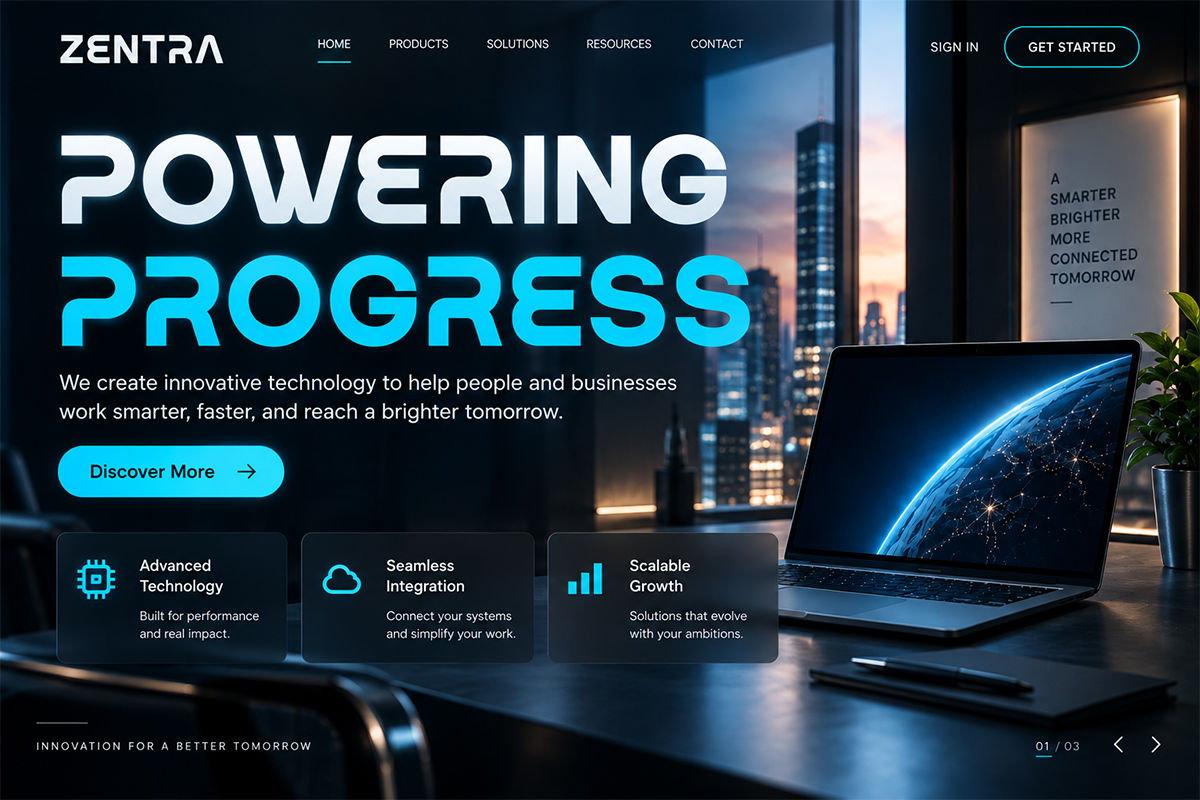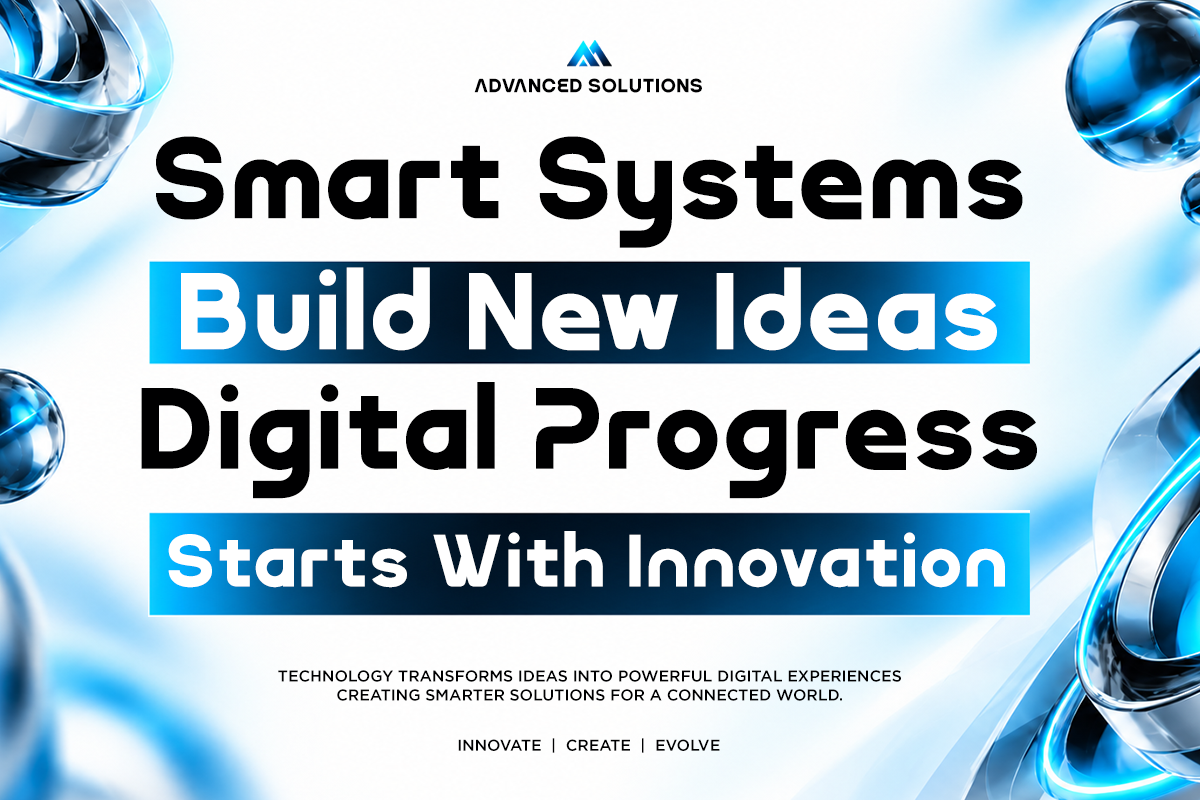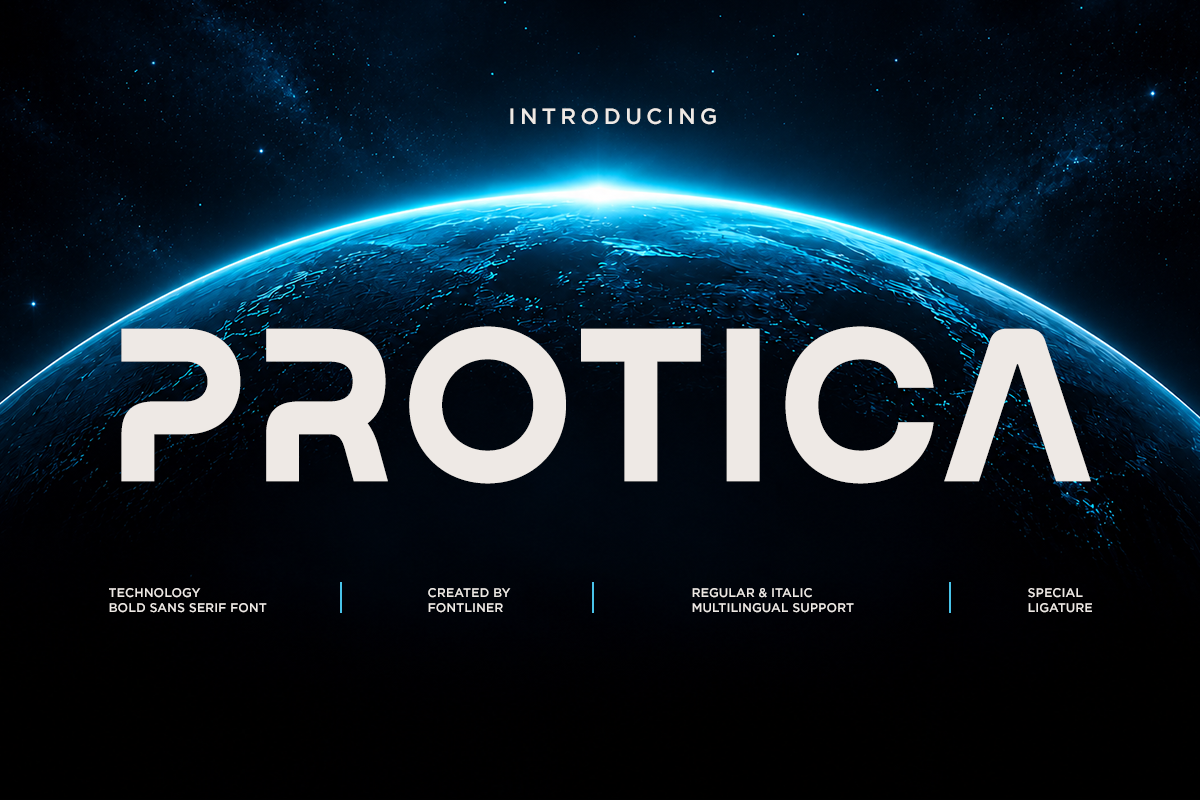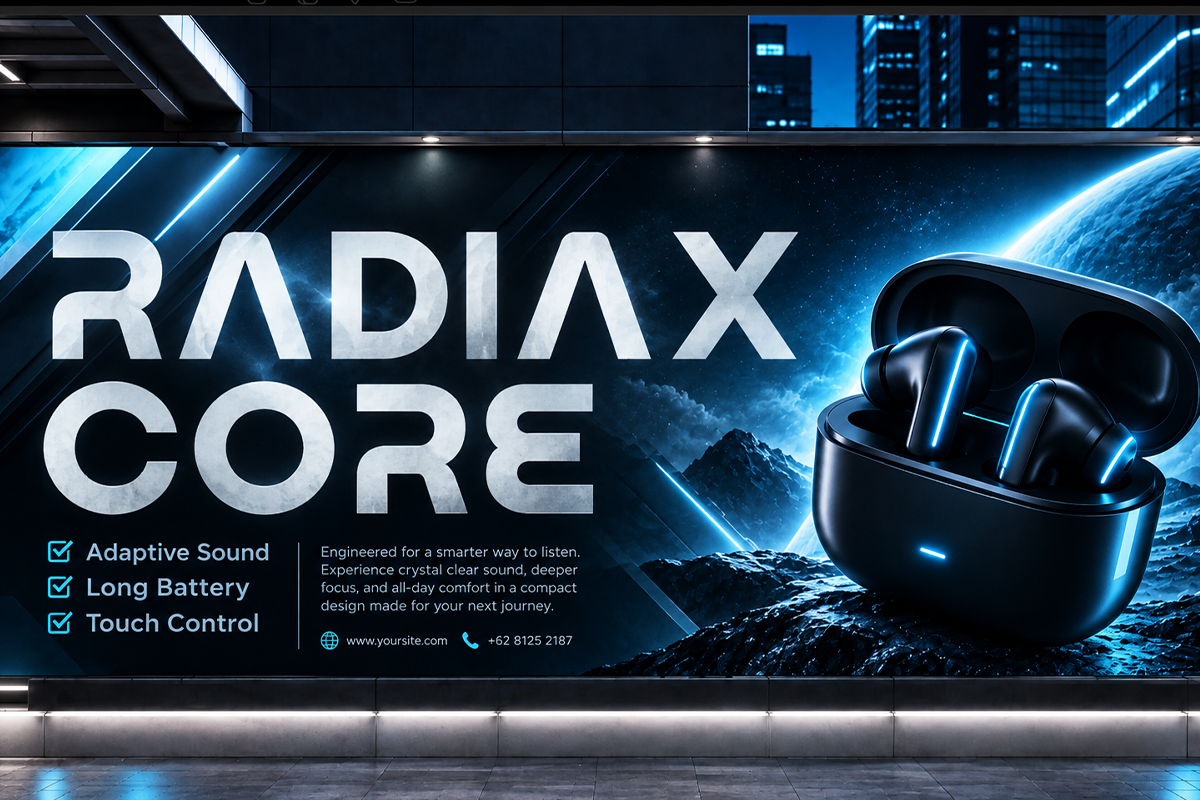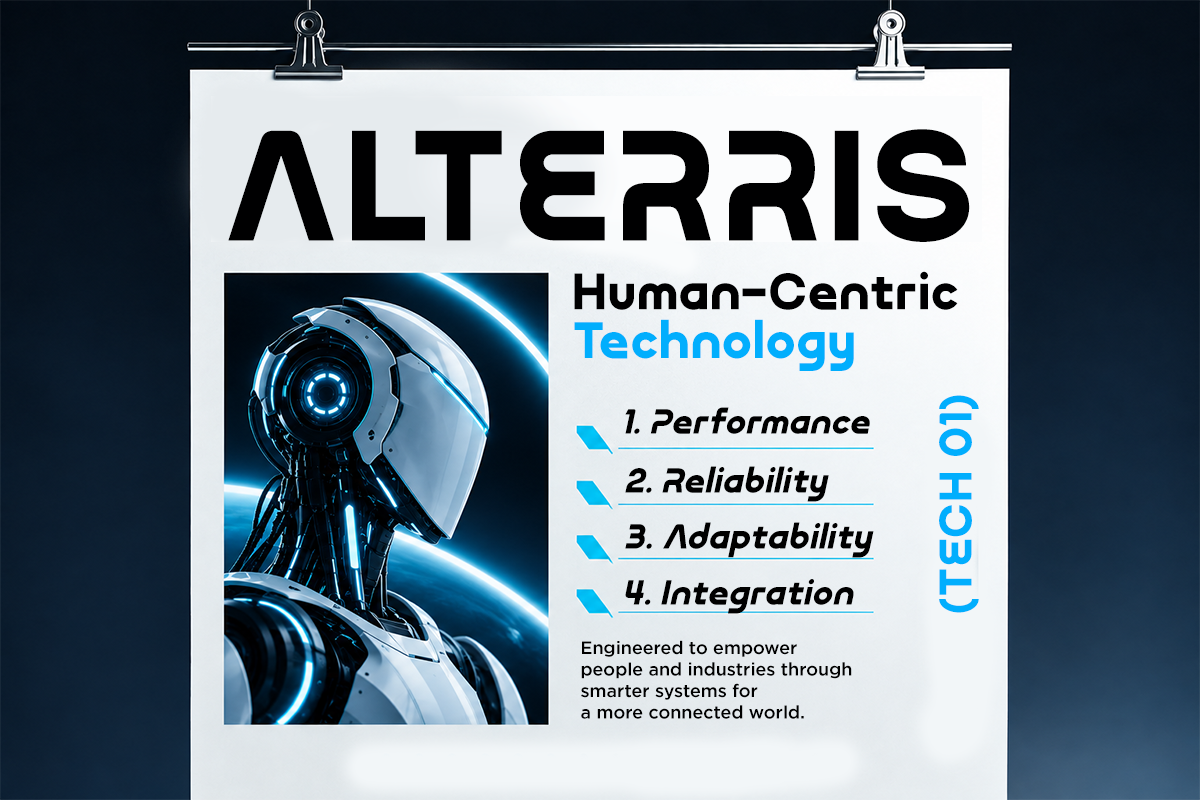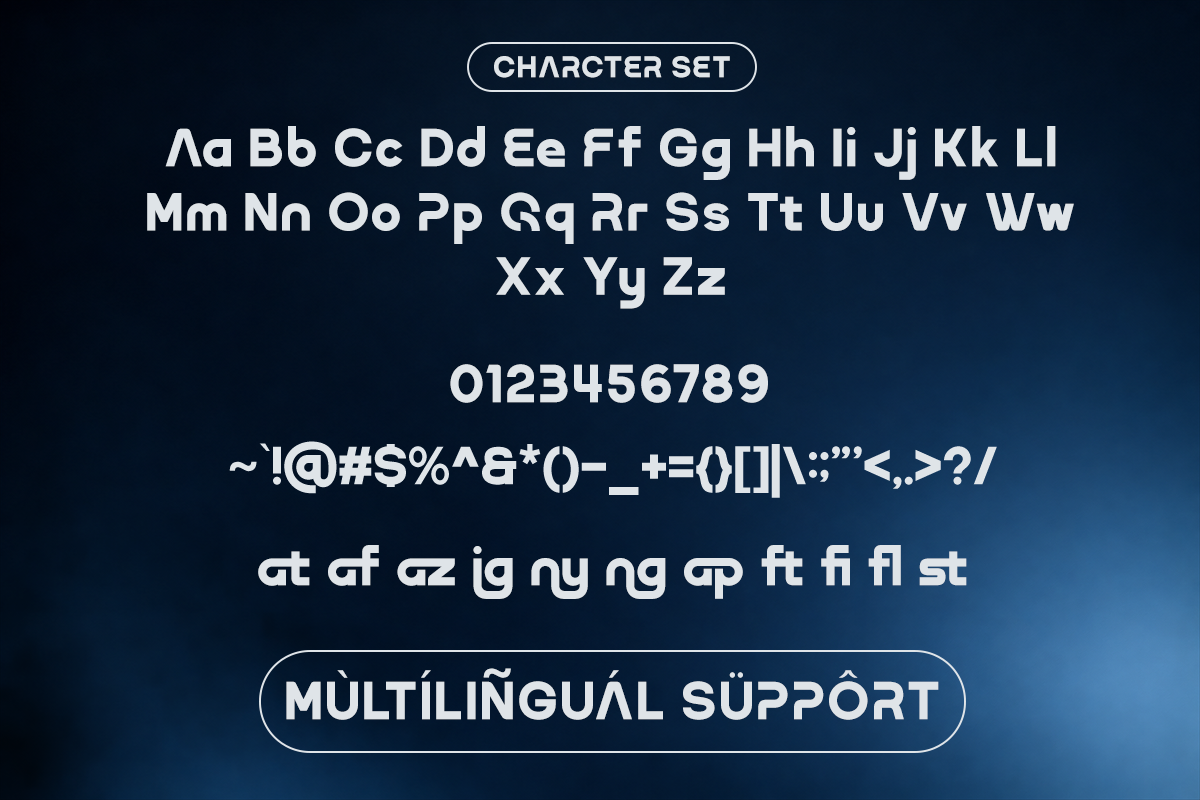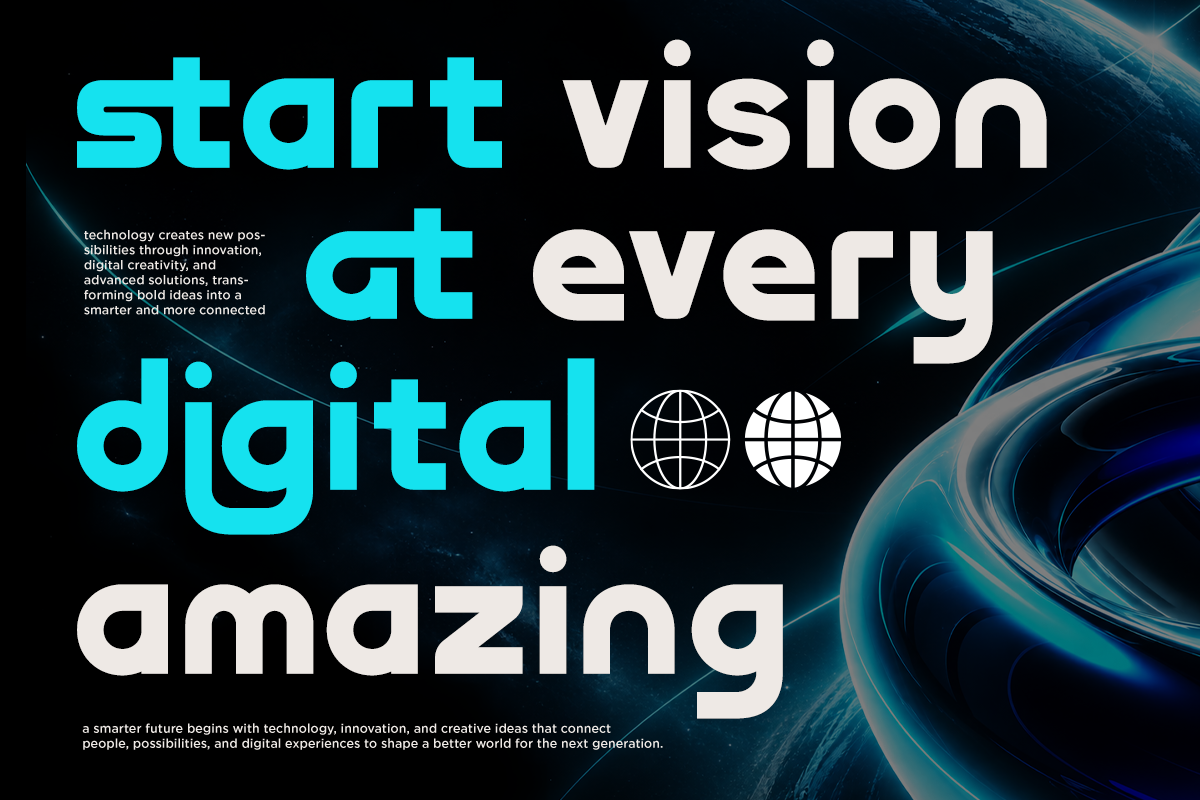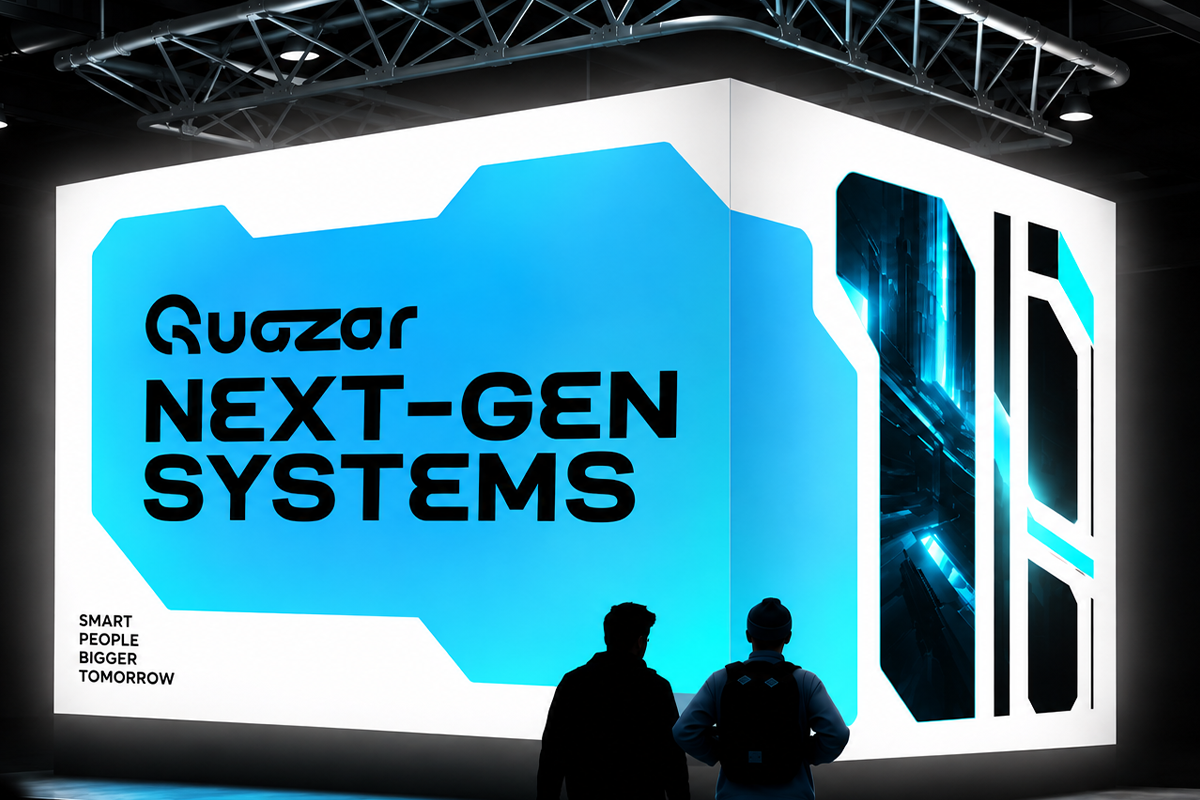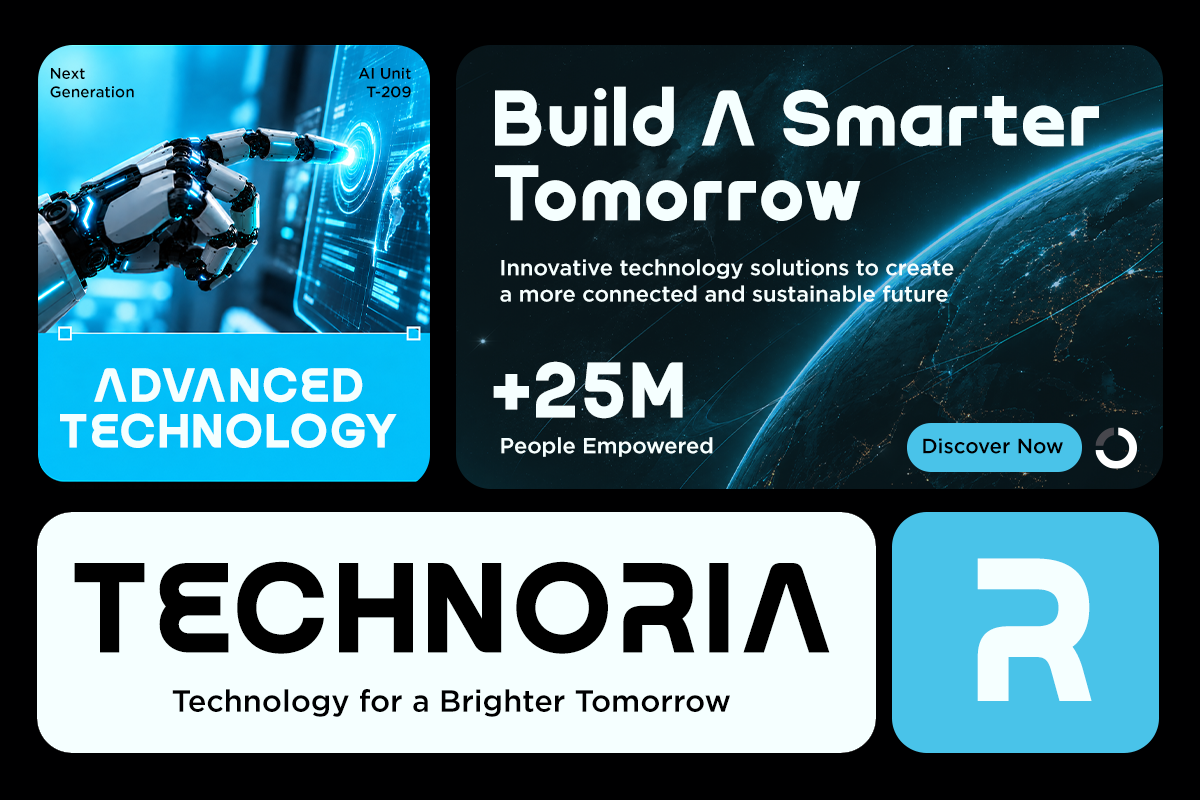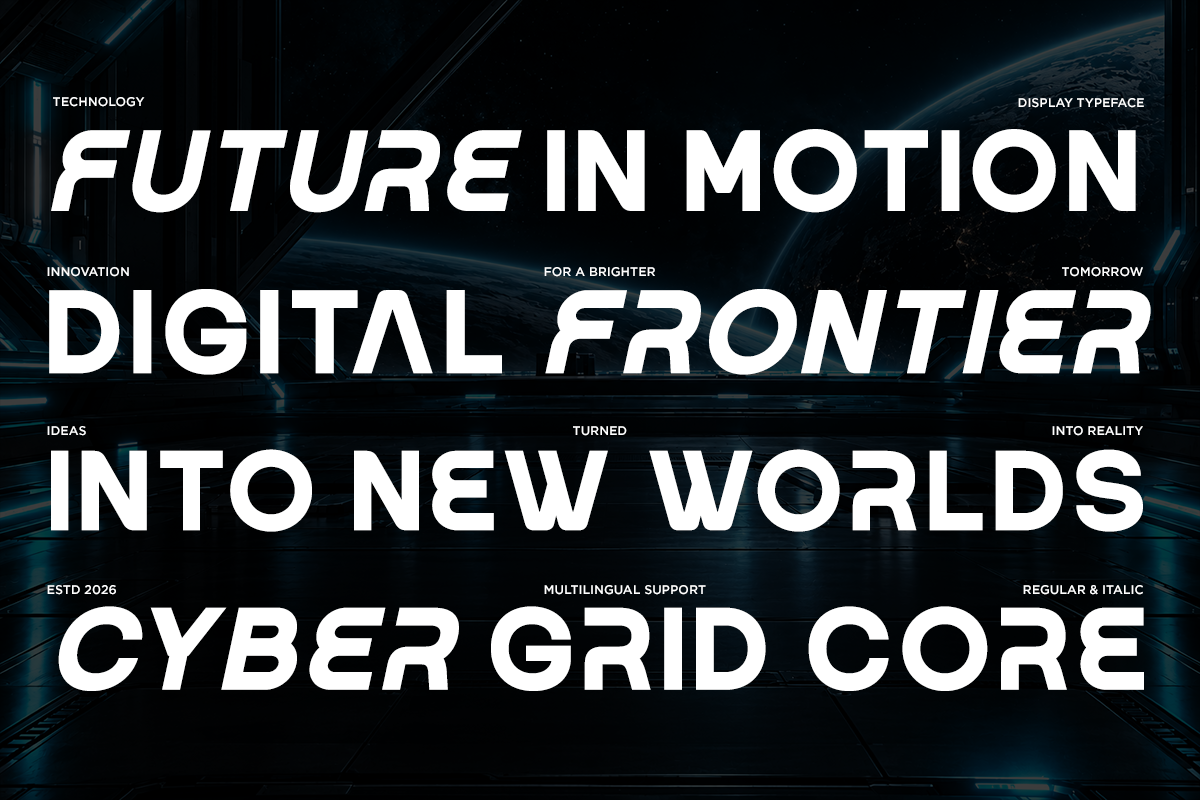
Protica - Futuristic Tech Logo Font
Protica is a futuristic techno display font designed for bold, modern, and technology driven visual communication. Featuring geometric letterforms, streamlined shapes, and a distinctive digital aesthetic, Protica creates a powerful futuristic impression that instantly captures attention. Its clean yet experimental character makes it ideal for projects that need a cutting edge technological atmosphere.
Perfect for technology branding, AI projects, robotics, gaming, cyberpunk designs, software, digital products, automotive brands, futuristic websites, posters, advertising, editorial layouts, and creative headlines. Protica works especially well for technology companies, innovation campaigns, digital platforms, and next generation concepts where strong typography plays an important role in the overall visual identity.
Use Protica for logos, brand identities, headlines, posters, websites, social media graphics, packaging, gaming graphics, product presentations, technology campaigns, and promotional materials. Its bold futuristic appearance makes it suitable for both professional technology brands and experimental sci fi inspired designs.
Regular and Italic
Stylistic Ligatures
Number, Symbols, and Punctuation